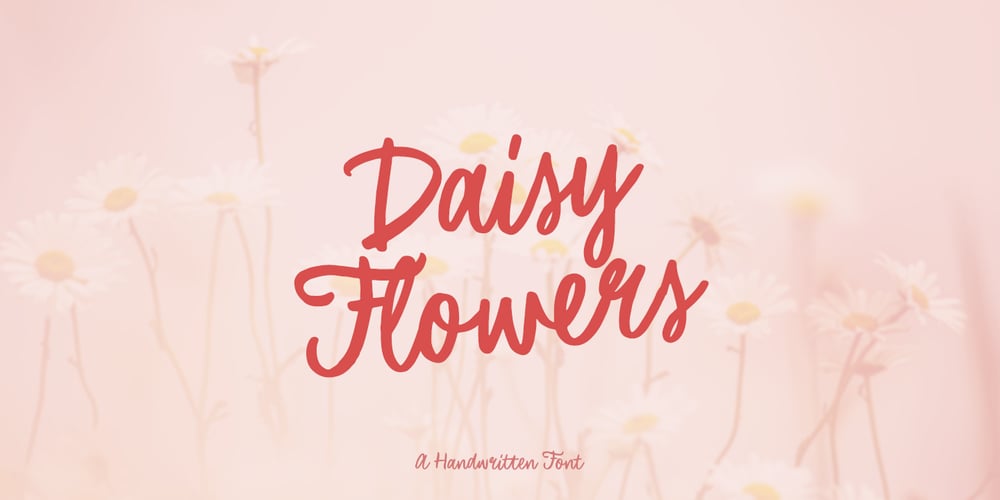
Daisy Flowers Font Family was designed by Dmitrii Chirkov and published by Supfonts. Daisy Flowers contains 1 styles and family package options. Daisy Flowers will be perfect for wedding lettering, beautiful frame for your home, book covers, greeting cards, logos, marketing, magazines or anything that requires cute handwritten lettering :)What’s inside: Daisy Flowers font Multilingual support Cricut support If you have any questions, please contact me directly or in instagram @superdizigner